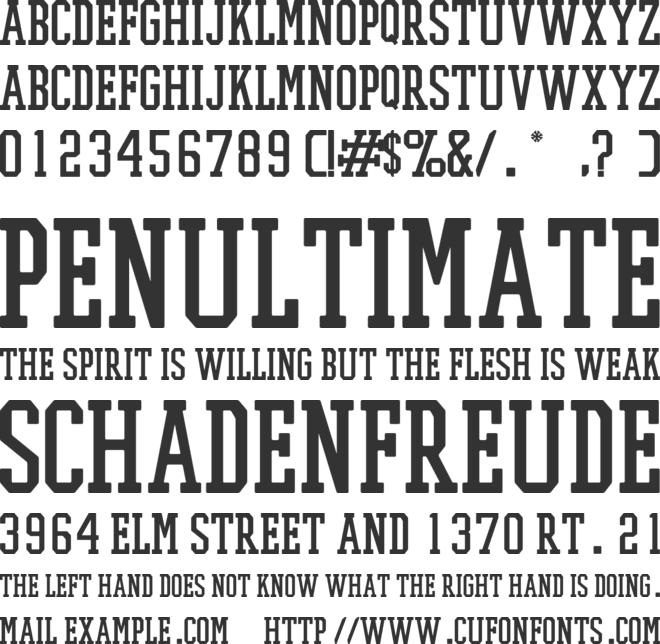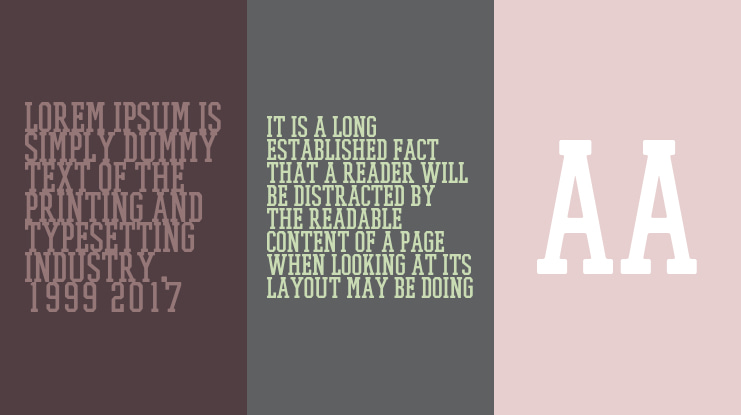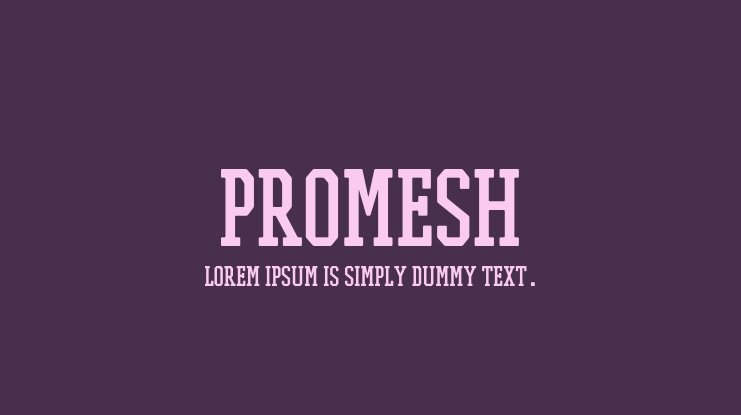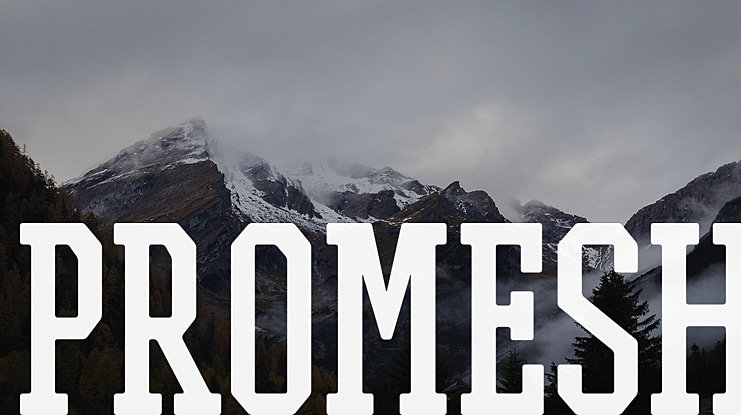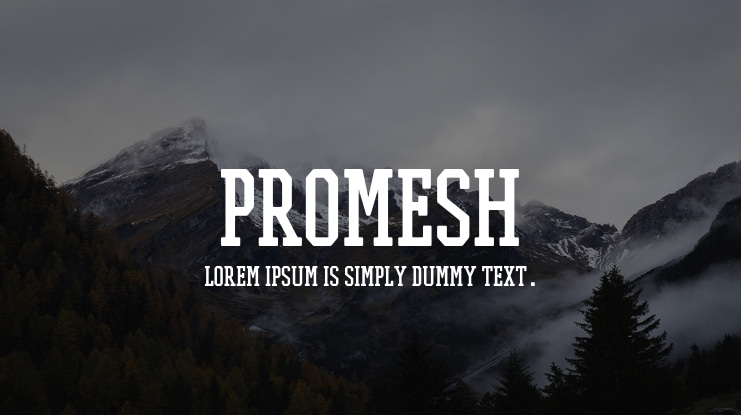
PROMESH Font Family
PROMESH puts a spin on your typical and boring athletic font. A distressed mesh look reminiscent of those old school basketball jerseys.